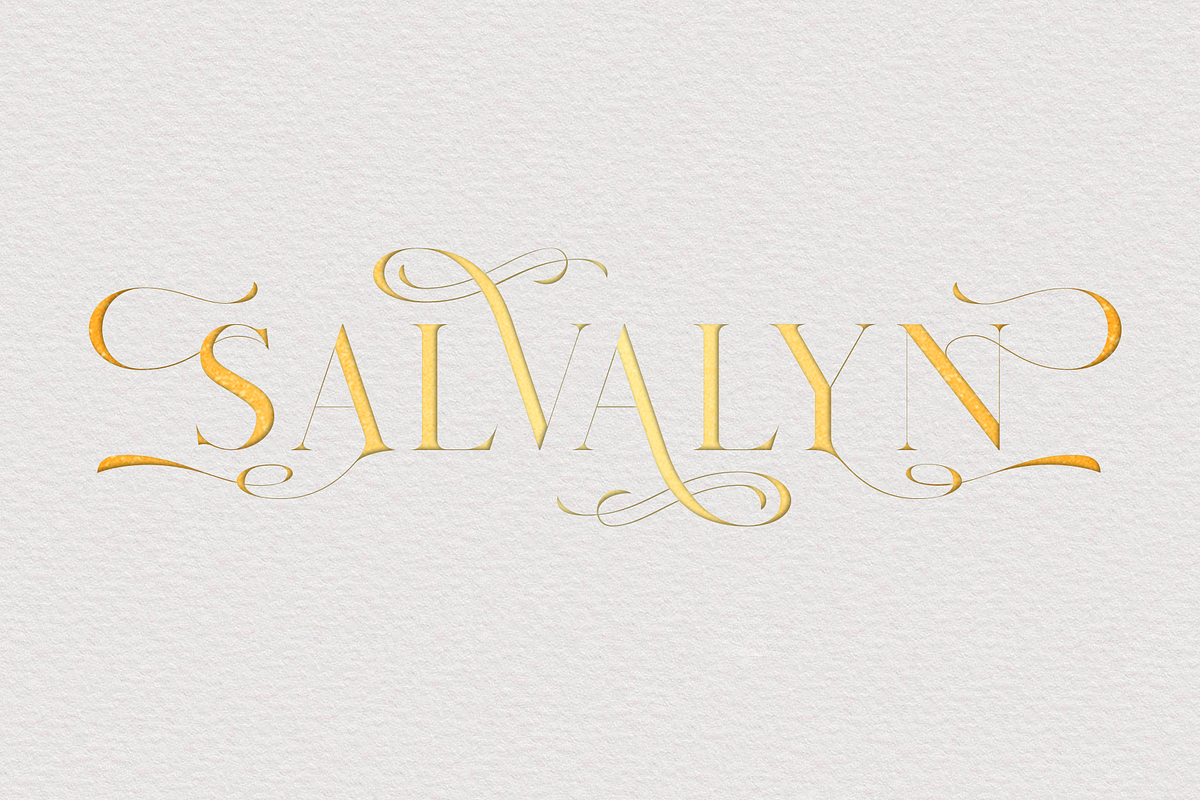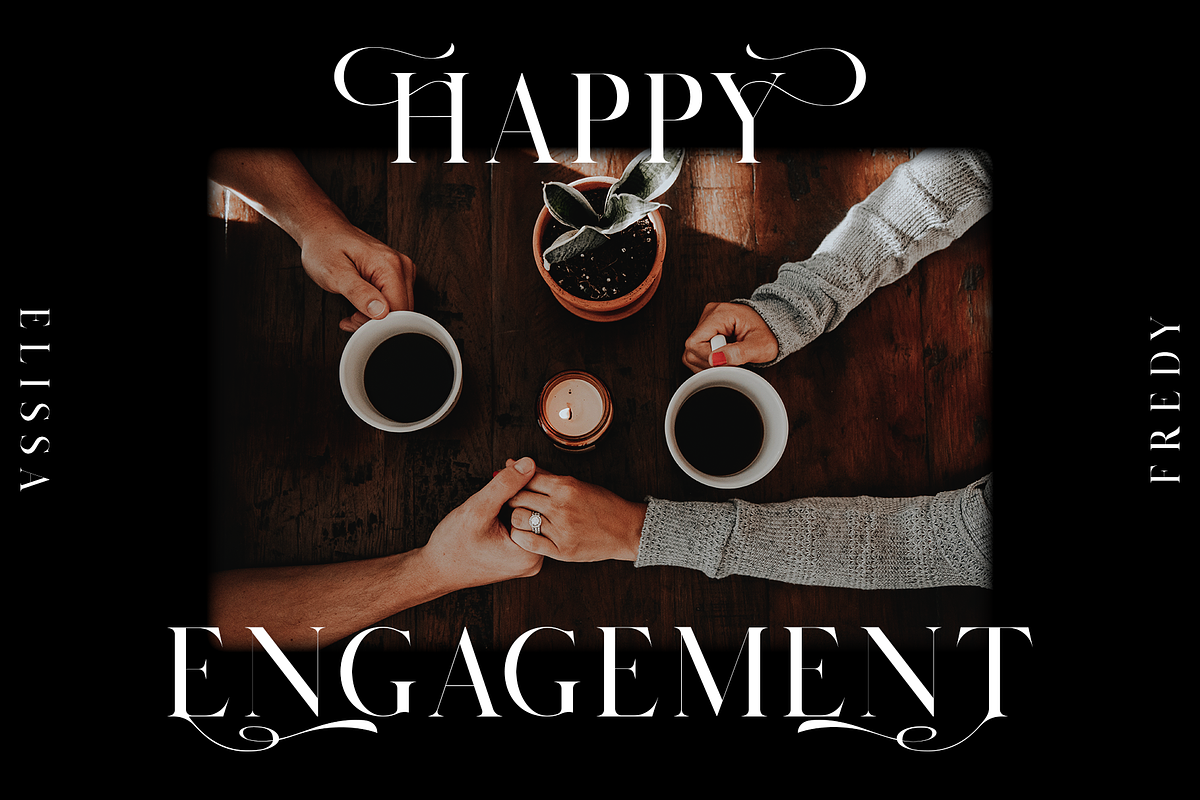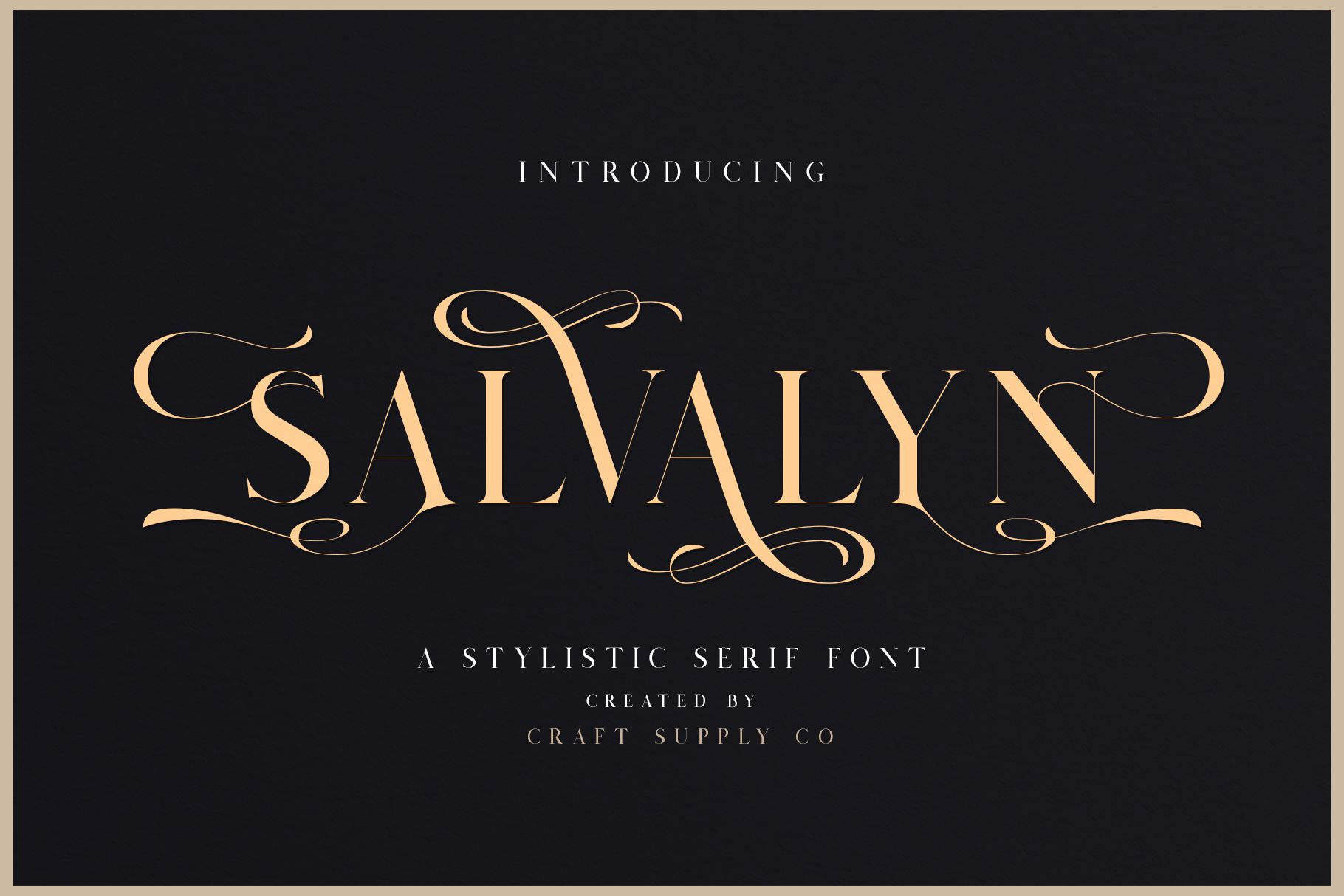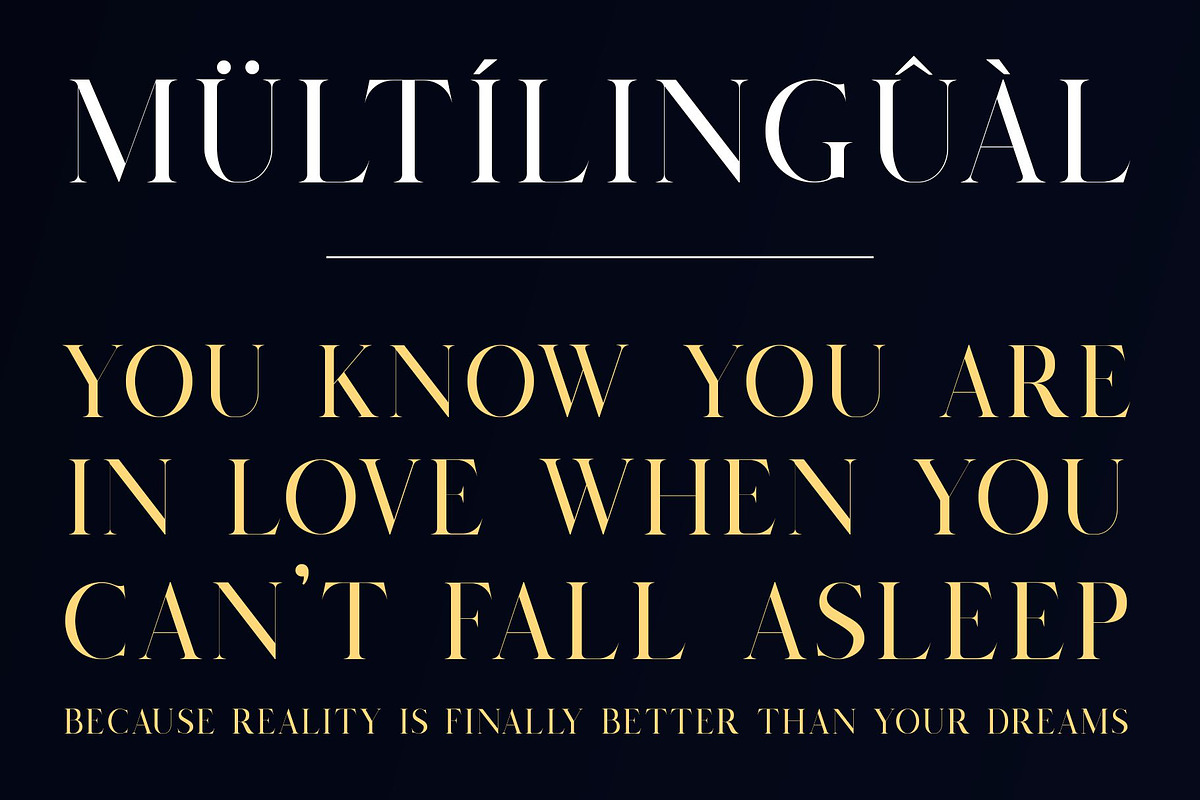
Salvalyn - Stylistic Serif Font
Introducing Salvalyn - Stylistic Serif Font
Salvalyn - Stylistic Serif Font is an elegant serif font that offers a wide range of possibilities, especially for a lot of alternative. Salvalyn - Stylistic Serif Font offers an attractive tool for producing elegant decorative lettering, for example, for book covers or for posters and packaging.
You want to make a greeting card or a package design, or even a brand identity, craft design, any DIY project, book title, wedding font, pop vintage design, retro design or any purpose to make your art / design project look Elegant and Classy? Feel free to play with this font!
- Upper Case & Lowercase
- Standart Ligatures
- Accents (Multilingual characters) ÀÁÂÃÄÅÇÈÉÊËÌÍÎÏÐÑÒÓÔÕÖØÙÚÛÜÝßàáâãäåæçèéêëìíîïðñòóôõöøùúûüýÿ